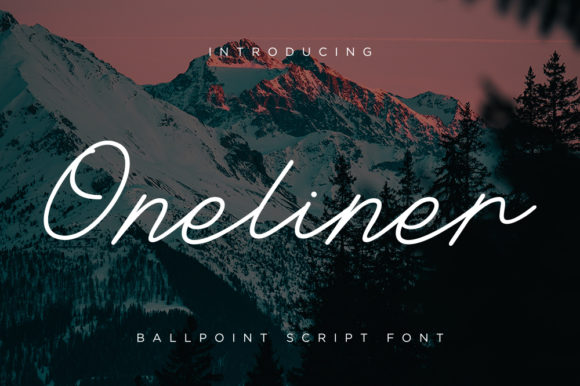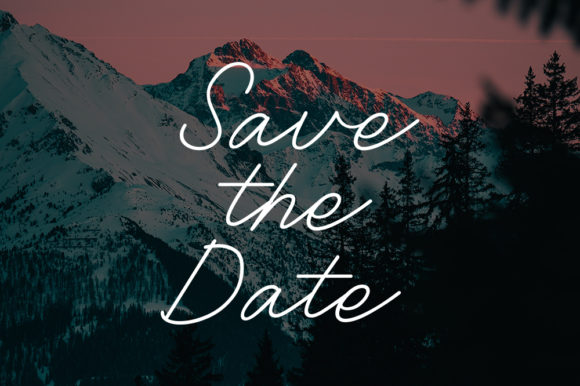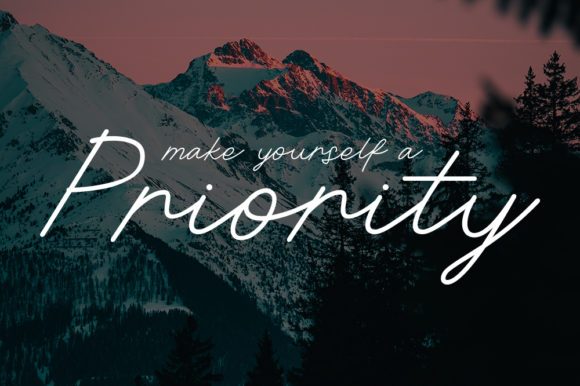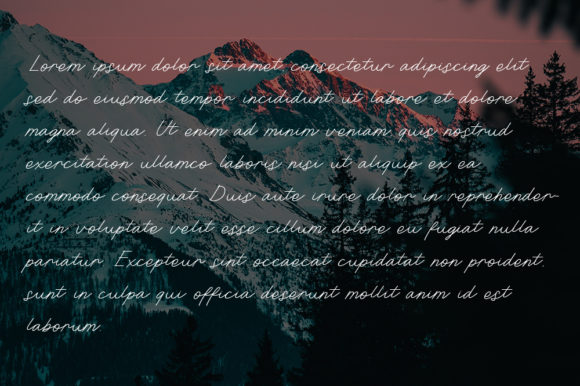
About Oneliner Font
Oneliner is a magical script font carefully created with a touch of elegance. This is a beautiful combination of timeless elegance and authentic calligraphy. It features an incredibly classic style, while still keeping a friendly feel. Oneliner is the perfect font for making original and outstanding designs.